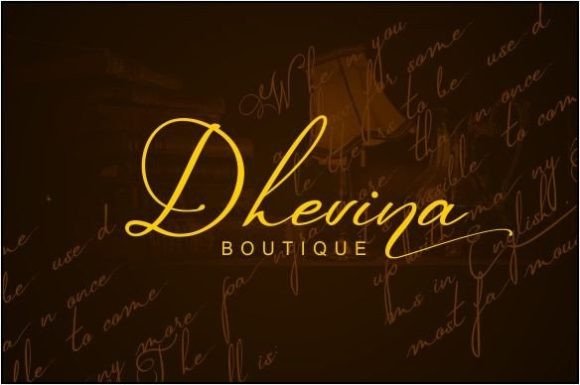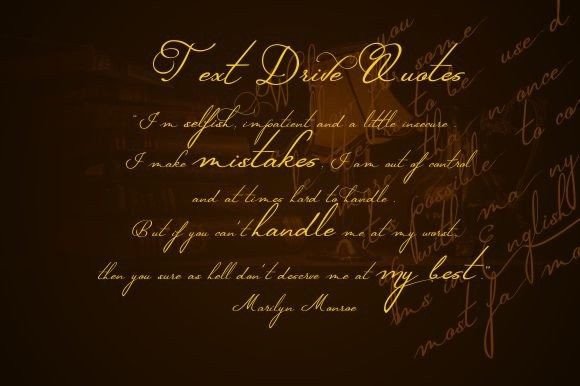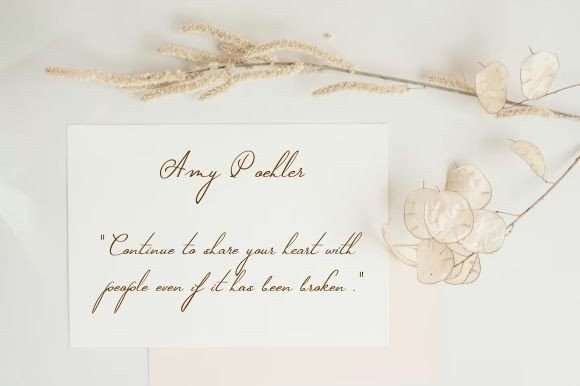
Introducing Chevitha Font: A Timeless Classic with a Modern Twist
In the world of typography, few fonts manage to strike a balance between classic elegance and modern flair. Chevitha Font is one such gem that effortlessly merges the charm of traditional handwriting with contemporary style. Inspired by the art of handwritten correspondence from days gone by, Chevitha brings a touch of nostalgia to your designs while keeping them fresh and relevant.
The Inspiration Behind Chevitha
Chevitha’s design roots are deeply embedded in the classic handwriting styles that were once a staple of personal correspondence. Imagine the flowing scripts, the elegant loops, and the whimsical flair of handwritten letters from the past. The creators of Chevitha sought to capture this essence, meticulously crafting each character to reflect the beauty and personality of handwritten text, while ensuring it remains approachable and legible in modern contexts.
Design Characteristics of Chevitha
Chevitha’s design is characterized by its:
- Classic Handwritten Feel: Each letter in Chevitha is designed to mimic the natural flow and imperfections of handwriting, giving it a personal and intimate feel.
- Modern Legibility: Despite its classic inspiration, Chevitha is crafted to be highly legible, making it suitable for a wide range of applications, from digital screens to print materials.
- Elegant and Whimsical: The font strikes a perfect balance between elegance and playfulness, making it versatile for various design projects.
Uses of Chevitha Font
Given its unique blend of classic charm and modern appeal, Chevitha Font is incredibly versatile. Here are some of the many ways you can use Chevitha in your designs:
- Logotypes and Branding: Chevitha’s distinctive style makes it an excellent choice for logotypes and branding projects that aim to convey a sense of tradition and sophistication.
- Video Titles and Subtitles: Add a touch of elegance to your video content with Chevitha. Its readability on screen makes it perfect for titles, subtitles, and end credits.
- Greeting Card Designs: Whether it’s for a birthday, wedding, or holiday, Chevitha’s charming and personal feel makes it ideal for greeting card designs.
- Packaging and Advertising: For brands looking to stand out with a classic yet modern aesthetic, Chevitha can add a unique flair to packaging and advertising materials.
Why Choose Chevitha?
In a market flooded with generic fonts, Chevitha stands out for several reasons:
- Uniqueness: Chevitha’s distinctive style sets it apart from more common fonts, offering a fresh alternative for designers.
- Versatility: Its adaptability across various mediums and design applications makes Chevitha a valuable addition to any designer’s toolkit.
- Emotional Connection: The font’s ability to evoke a sense of nostalgia and warmth can help create a stronger emotional connection with your audience.
Chevitha Font is more than just a typeface; it’s a bridge between the past and the present, offering a unique typographic solution for designers and crafters. Its blend of classic inspiration and modern design ensures that your projects stand out with elegance and personality. Whether you’re working on a branding project, creating video content, or designing greeting cards, Chevitha is sure to bring a touch of timeless charm to your work.
So, if you’re looking to infuse your designs with a sense of history and a dash of modernity, look no further than Chevitha Font. Its versatility, charm, and legibility make it an excellent choice for anyone seeking to add depth and character to their creative projects.